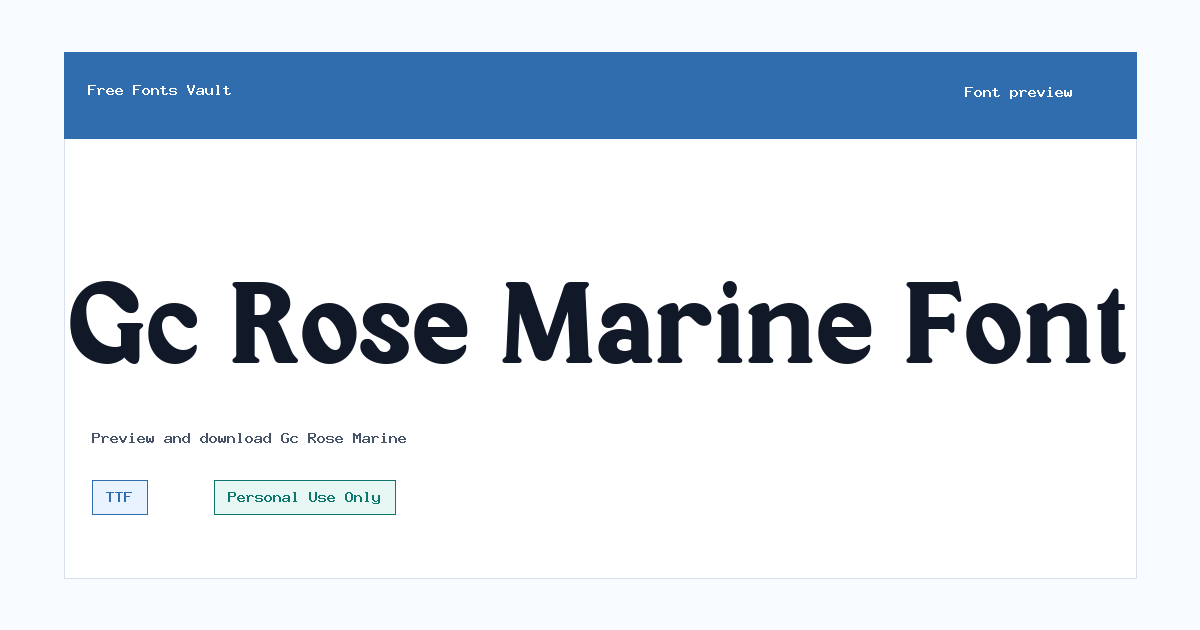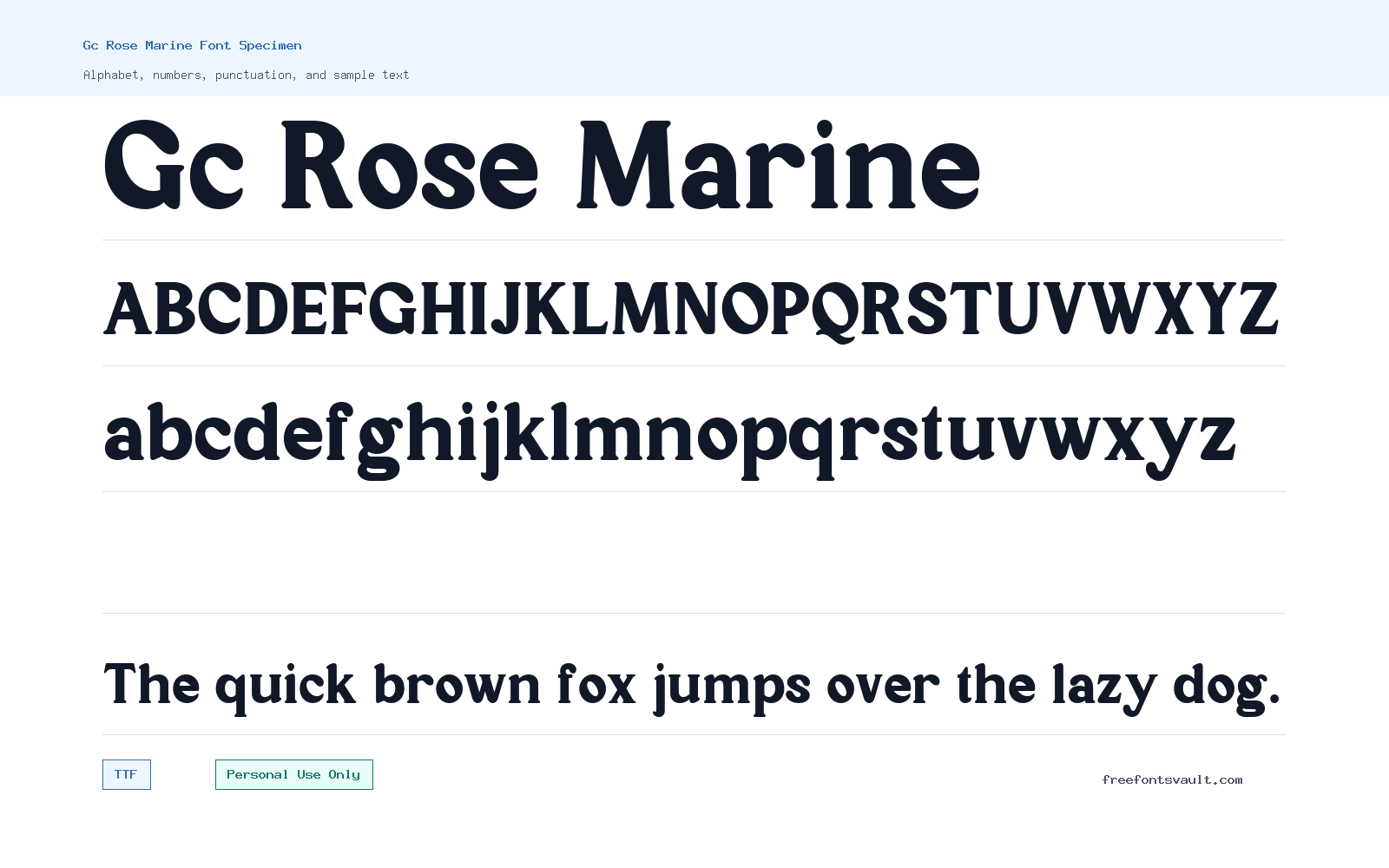
Gc Rose Marine
Gc Rose Marine font.
Gc Rose Marine is a serif font with a demo TTF file for personal projects. It is a good choice to test when you want a more decorative serif voice for titles, short phrases, or visual branding drafts, while keeping the license limit in mind.
About Gc Rose Marine
Gc Rose Marine is credited to Ken Priska Dewirani of Glyphonic. The font is listed as a serif font and comes in a regular style with normal weight. Because the available file is a demo TTF, it is best treated as a preview and personal-use download rather than a complete commercial font package. Use the live preview to check how its letter shapes behave in the exact words you plan to use, especially if your text includes mixed case, punctuation, or longer names.
For practical use, start with short display settings: page headings, mood boards, invitation mockups, quote graphics, packaging concepts, social posts, or personal logo experiments. Serif display fonts often work best when they have enough space, so test wider tracking and larger sizes before using it in dense text. If the font feels too detailed for body copy, pair it with a plain sans serif or simple text serif for descriptions, captions, and navigation. before release anything beyond personal use, look for the full license or contact the designer or foundry for permission.
- Serif display direction suited to short, visible text rather than long reading passages.
- Personal design previews, mood boards, invitations, and quote graphics.
- Headlines, names, short titles, and branding mockups where a serif style is wanted.
What is Gc Rose Marine best used for?
It is best tested for short display text such as headings, invitations, quote images, personal branding drafts, and decorative design mockups.
Should I use Gc Rose Marine for body text?
Test it first, but it is safer to use it for short text and pair it with a simpler font for paragraphs or small captions.